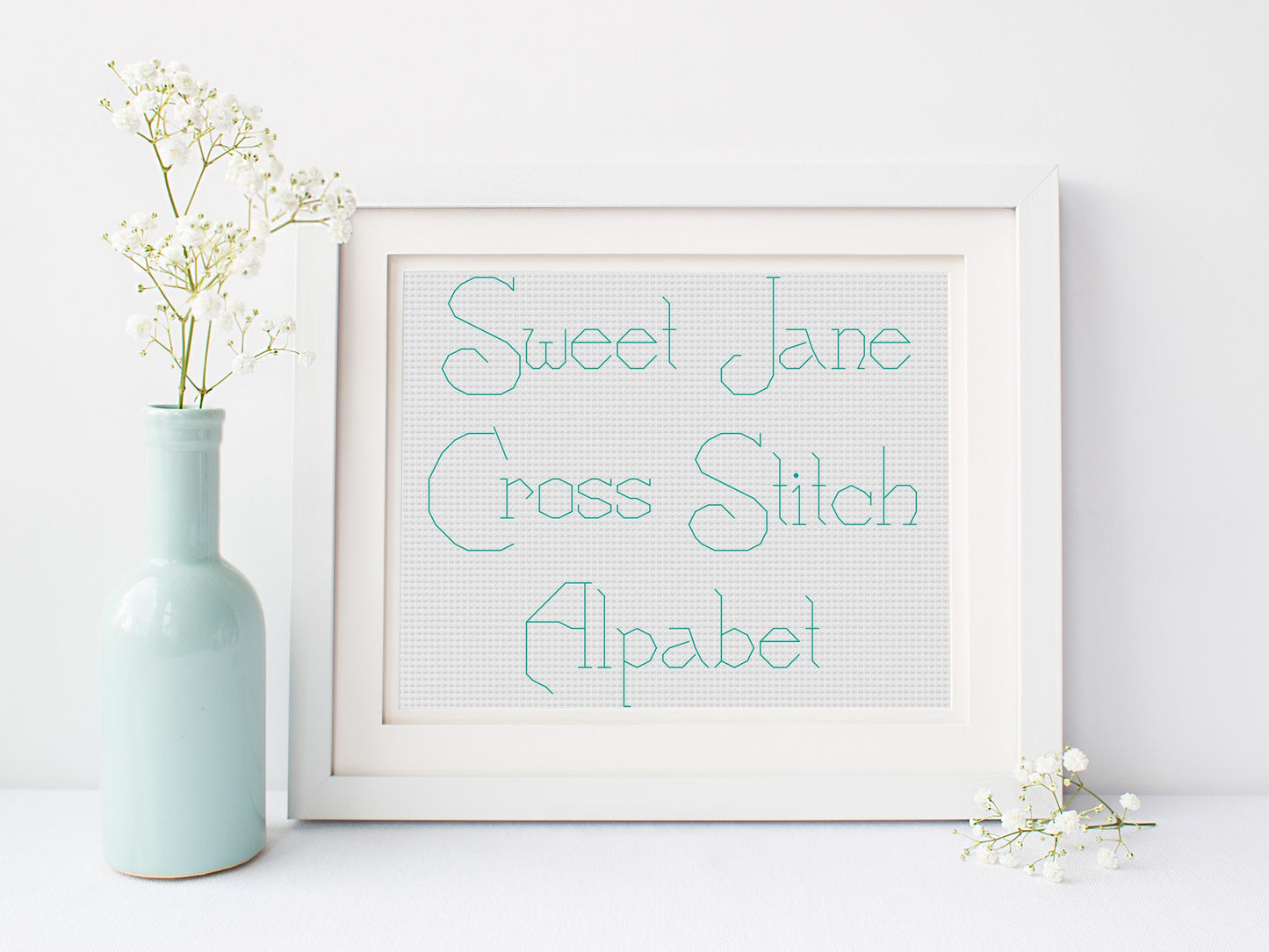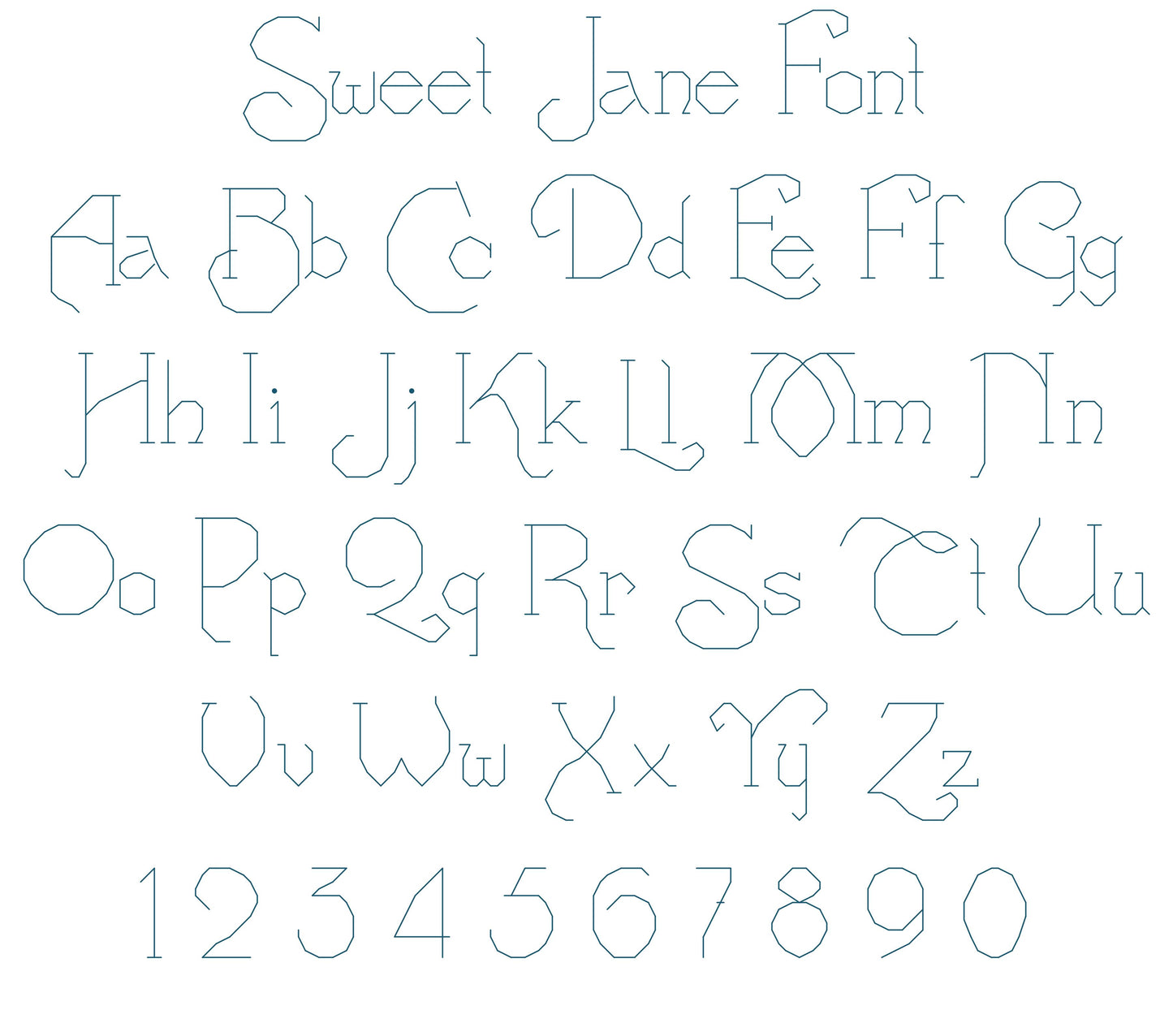
Sweet Jane BACK STITCH Font PDF Pattern
This cross stitch font is SUPER easy and fast because it is made using back stitches ONLY.
Capital letters measure 2-17 stitches wide x 13-18 stitches tall
Lowercase letters measure 3-10 stitches wide x 5-13 stitches tall
Numbers measure 3-9 stitches wide x 13 stitches tall
-Back stitches only
Perfect for Christmas stockings and other small projects
Larger Fonts (with letters measuring 10-20 stitches wide) can usually accommodate names up to 9-10 letters long (assuming your cuff fabric is about 100 stitches wide and there are no additional motifs to either side of the name).